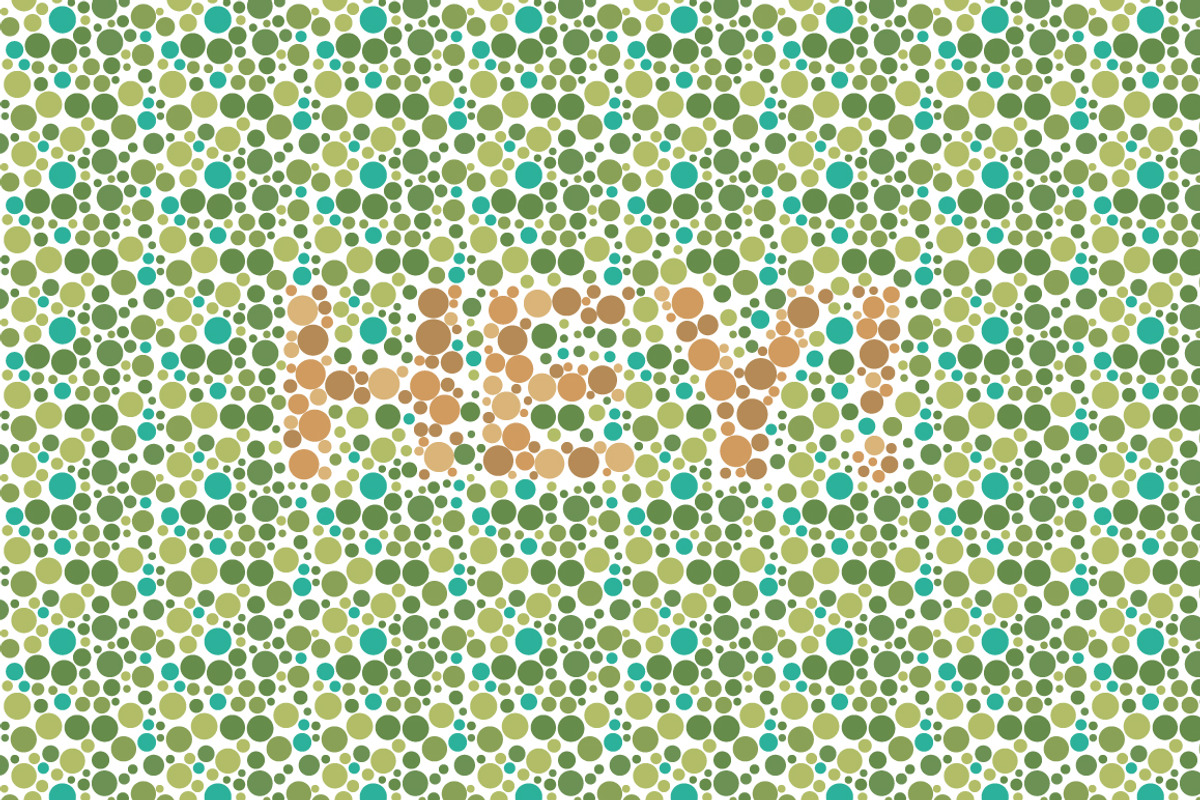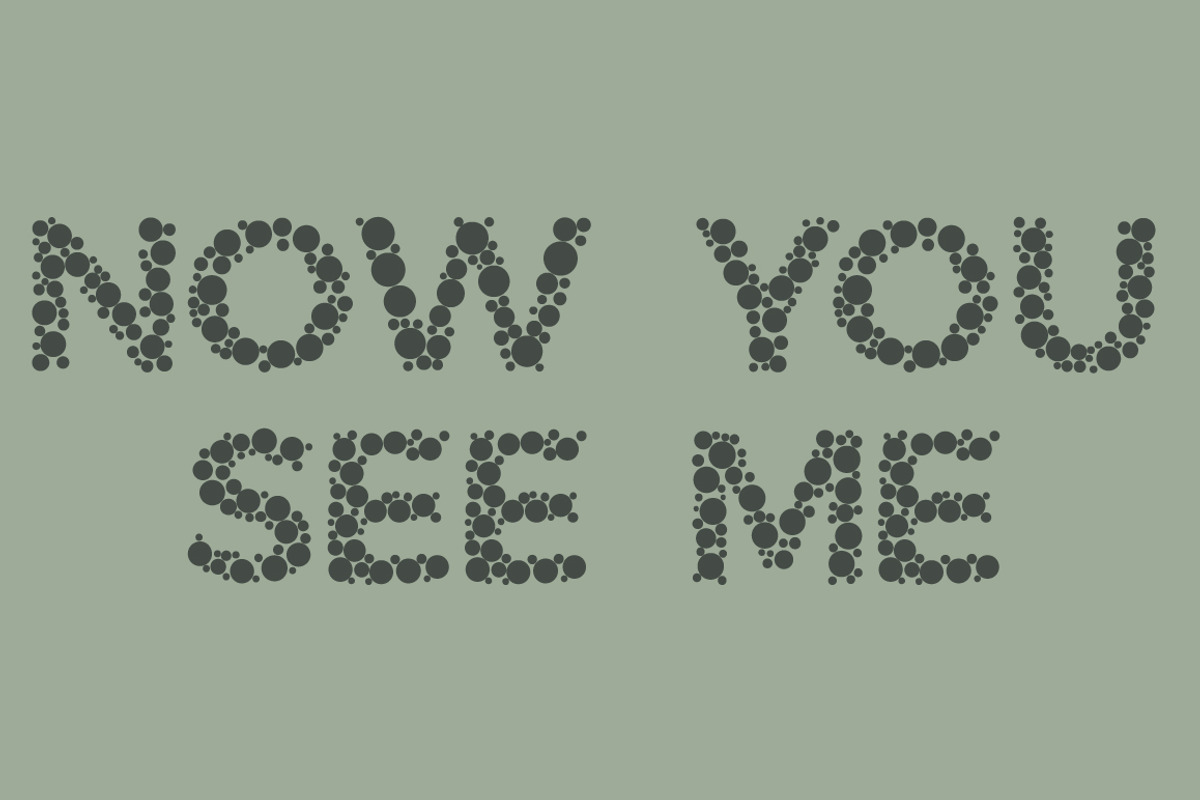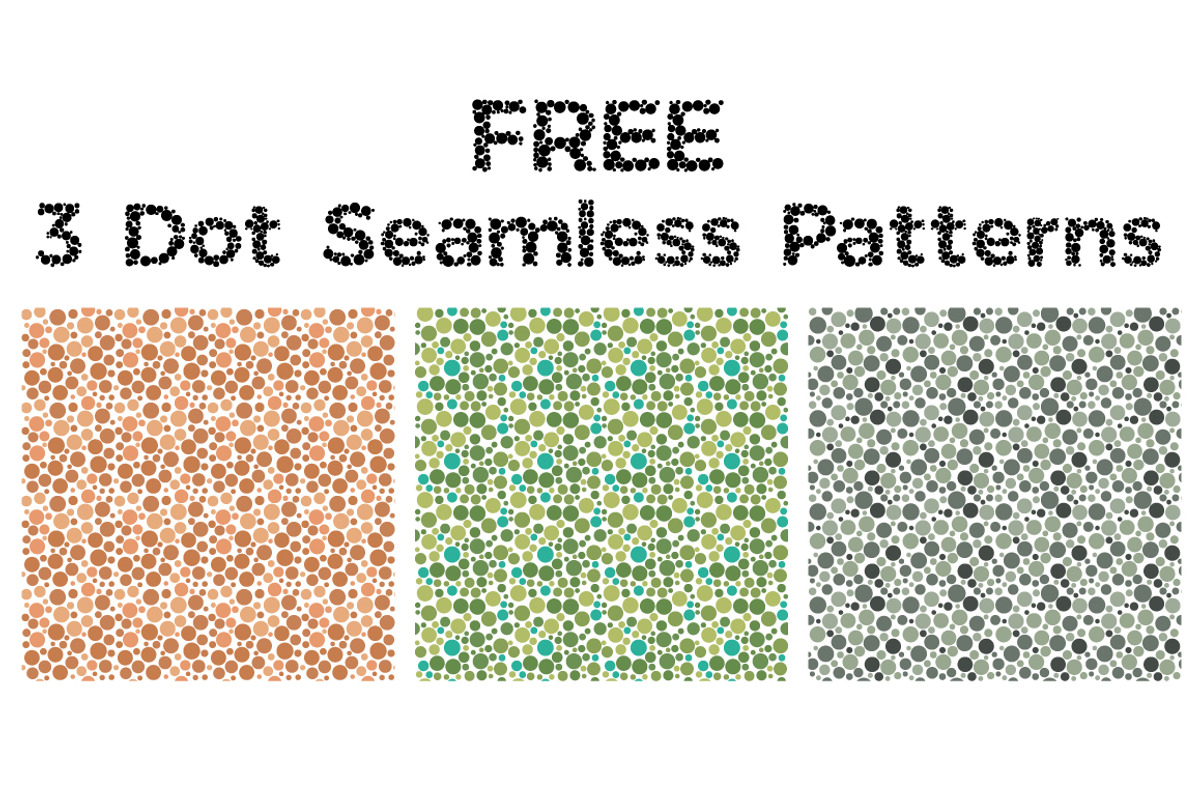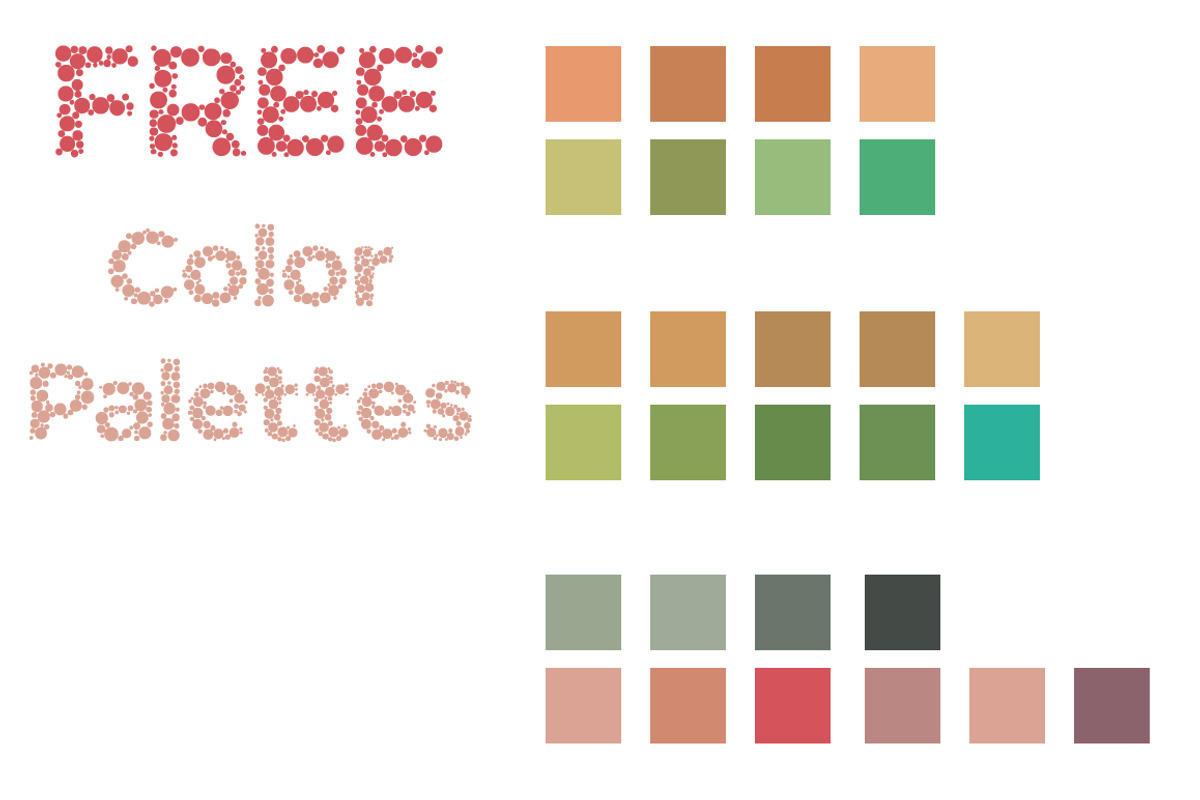
Color Blindness Test Typeface
Color blindness is a sans serif typeface compose of dots to form a letter inspired from color blindness test. Its letter shape design based on Montserrat font (which I really love this font you can see it here It can be use for fun header or poster like a blind color test.
Color blindness come in standard English characters(A-Z, a-z), numbers(0-9) and 28 Punctuations.